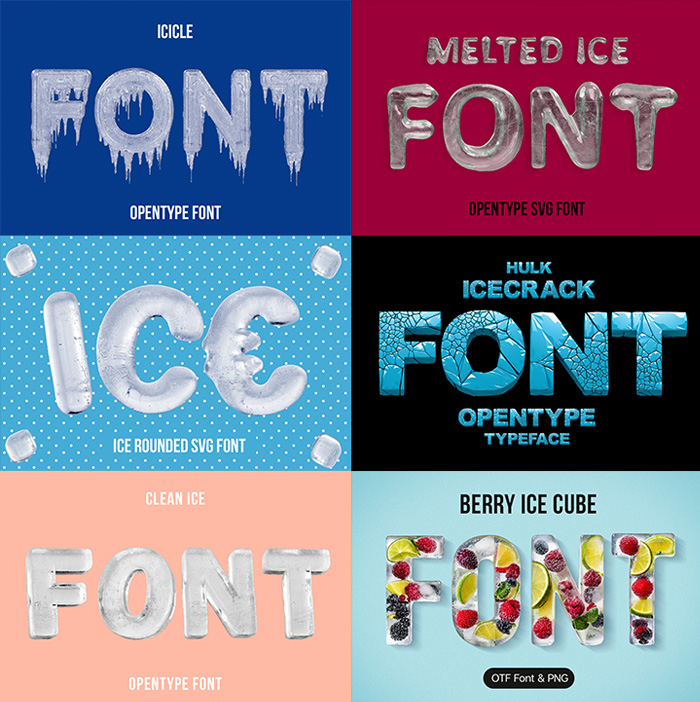
Ice Fonts – Frozen, Frosty & Crystal Typography
Some letters freeze perfectly clear. Others crack, melt, grow icicles or trap unexpected objects beneath their surface. Ice Fonts brings these different states of frozen water together in a collection of tactile alphabets for posters, packaging, branding and seasonal artwork.
Ice Fonts is a collection about one material behaving in several different ways. Ice can be crazed right through, worn round and smooth by water, grown into icicles under a stroke, or frozen around something else entirely — there are raspberries and lime slices trapped inside one of these alphabets. What they share is transparency, and that is the thing to plan for: an ice letter takes its colour from whatever sits behind it.
Clear, Cracked, Melting or Grown
Frozen King Font
Blue ice shattered into shards and refrozen into capitals.
Berry Ice Cubes Font
Cubes with raspberries, blackberries and lime slices frozen inside them.
Smooth Ice Font
Ice worn smooth by water, edges rounded, nothing sharp left.
Hulk Icecrack Font
Bright cyan blocks crazed all over with cracks that go right through.
Ice Water Melt Font
Clear ice caught mid-thaw, wet at the surface and losing its corners.
Ice Round Font
Fat rounded letters frozen white, floating on blue with loose cubes around them.
Clean Ice Font
Clean frozen blocks on warm peach, the one set here that is not cold at all to look at.
Ice Age Font
Pale ice with icicles hanging the full depth of the letter.
Icicle Font
Solid ice on navy, icicles growing off the underside of every stroke.
Polar Icicle Font
Tall, narrow capitals in deep blue ice, a web of white fractures inside and the drips kept short.
Ice Fonts Are Busiest From November to March
Drinks work comes first and stays all year: beer, spirits, energy drinks, anything advertised cold. Winter sports, ski resorts and outdoor brands follow, along with air conditioning, refrigeration and cold storage. Christmas and New Year campaigns take the icicle ones, and film and game titles reach for the cracked ones. Because these letters are see-through, give them a coloured or photographic ground rather than white.
How They Come
Ice Fonts Not Shown Above
The freezer is fuller than the grid suggests. Plain frozen blocks continue in Ice Big White Font, Ice Small Black Font, Ice Big Black Font, Black Ice Leaf Font and Ice Rotation Font. Colder moods and melting bring Ice Cold Font, Ice Passion Font, Ice Ice Baby Font and Ice Melt V2 Font.
And for things frozen inside the ice rather than made of it, see Ice Cranberry Font, Ice and Flowers Font and Frozen Red Juice Font.